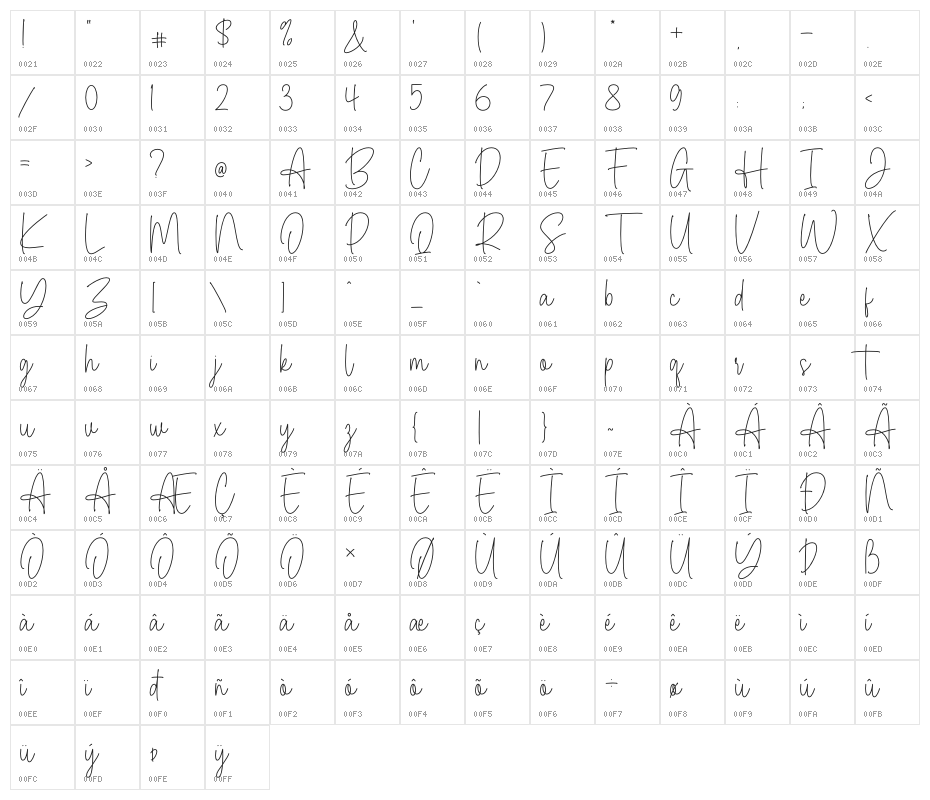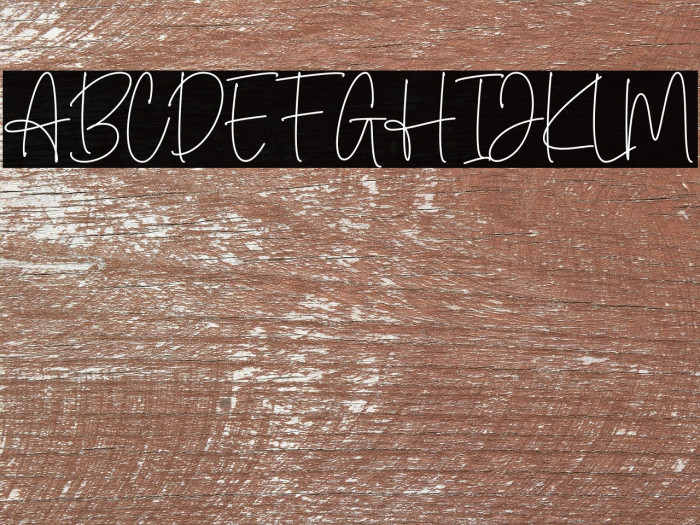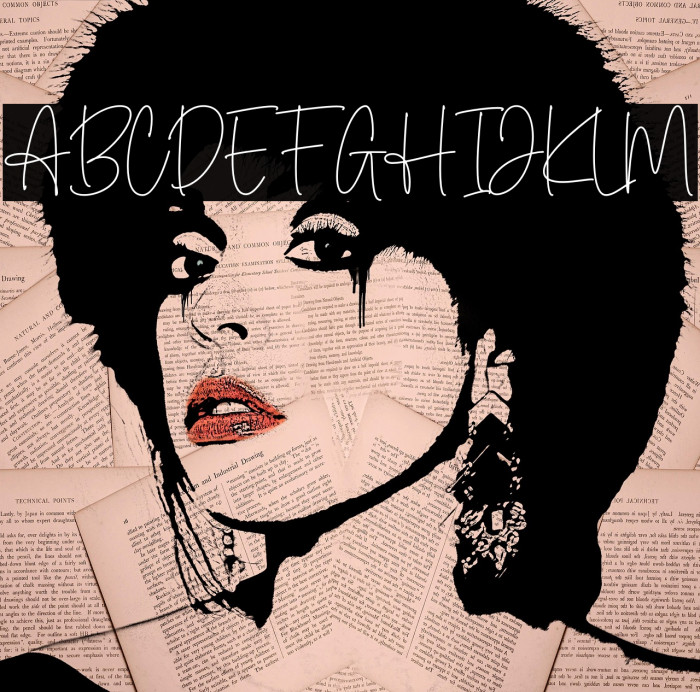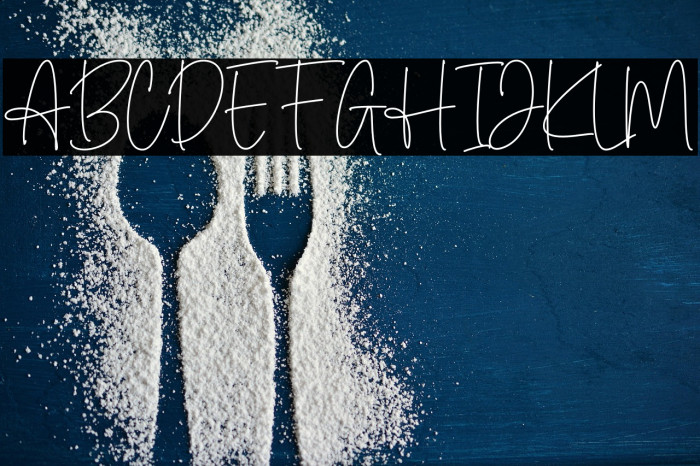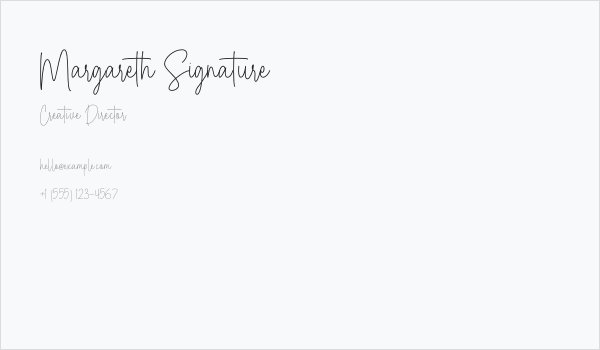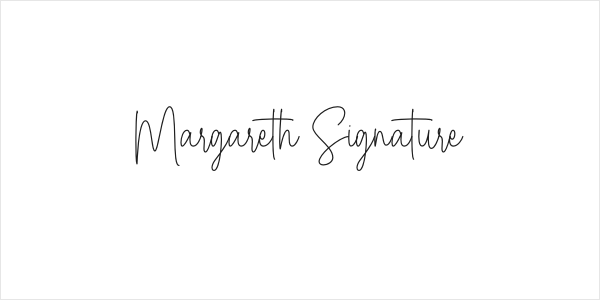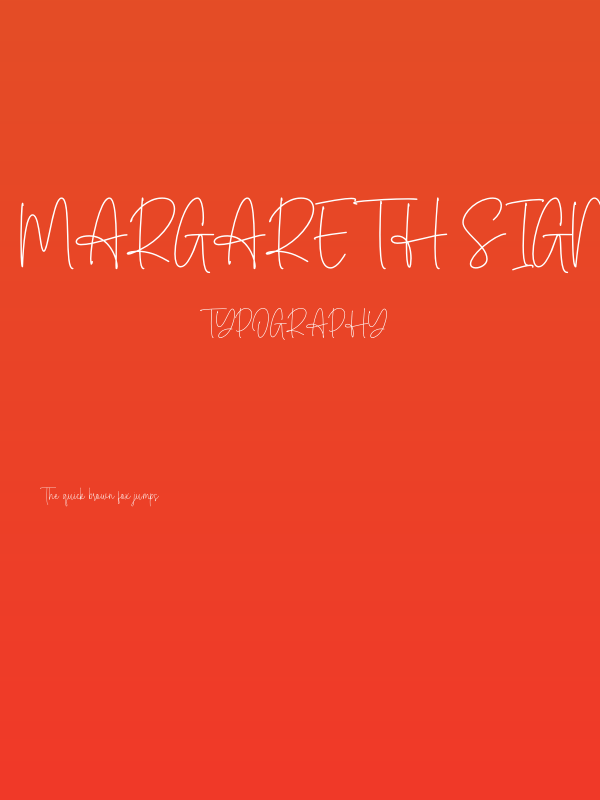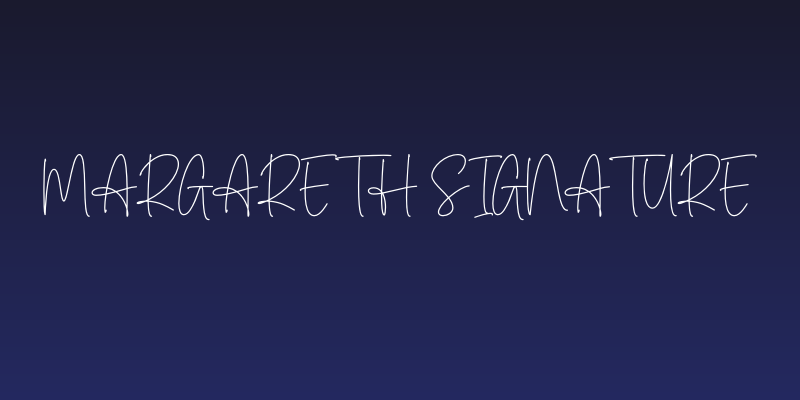
Margareth Signature Font
Margareth Signature Description
This font exudes a casual, handwritten style with a touch of elegance. The letters are fluid and connected, resembling a personal signature. The uppercase letters are slightly more structured, while the lowercase letters maintain a smooth, flowing appearance. The numbers and special characters follow the same handwritten aesthetic, providing a cohesive look across all elements. The strokes are consistent in thickness, offering a balanced and harmonious appearance. This font is perfect for projects that require a personal touch or a sense of authenticity.
| Use Case | Logos, Invitations, Personal branding |
| Proposed Projects | Ideal for personal branding, invitations, greeting cards, and social media graphics. |